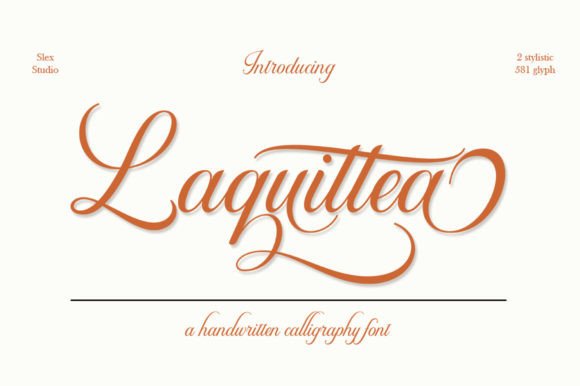
Unleash the elegance of Laquittea, a script font that captivates with its timeless beauty and contemporary flair. Inspired by classic calligraphy, this font exudes an aura of sophistication that will elevate your projects to new heights.
With its perfectly balanced and varied strokes, Laquittea strikes the perfect balance between thin and thick, creating a visually appealing aesthetic that draws the eyes. Its meticulously crafted glyphs and ligatures, accessible with PUA encoding, provide endless possibilities for creative expression.
Immerse yourself in the world of Laquittea and experience the joy of crafting stunning designs that speak to the heart. Whether you're a seasoned designer or just starting your creative journey, this font will empower you to create projects that leave a lasting impression.